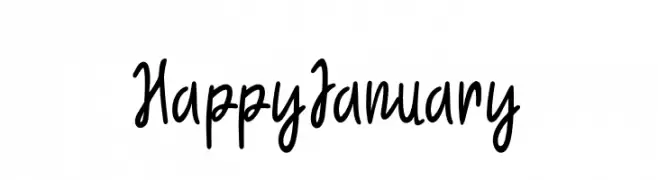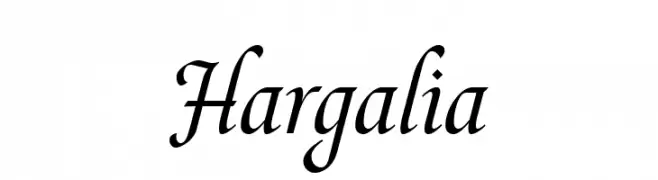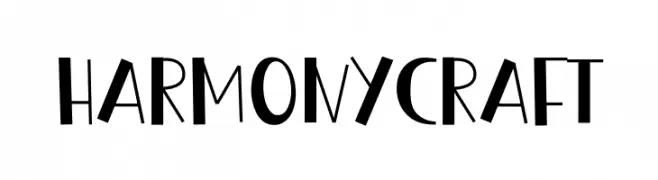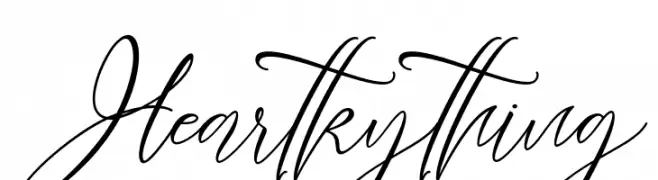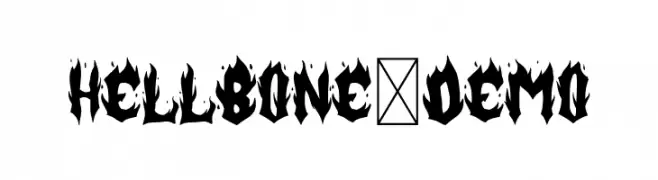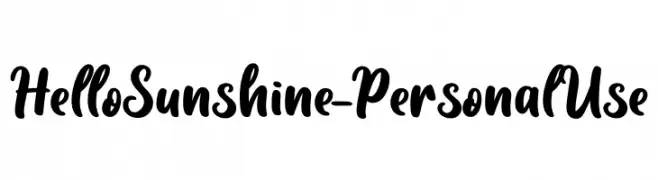
A playful, handwritten font with fluid and dynamic strokes.
A bold, graffiti-inspired font with intricate, angular designs.
An elegant script font with flowing, cursive lines and a classic aesthetic.
An elegant, high-contrast script font with a classic style.
A playful and artistic font with bold, irregular letterforms.
An elegant, flowing script font with intricate, interconnected letterforms.
An elegant, flowing script font with cursive, handwritten style.
A bold, flame-inspired decorative font with intense, dynamic shapes.
A playful, handwritten font with bold, smooth strokes and a casual, cursive style.
A playful, bold script font with interconnected, flowing strokes.